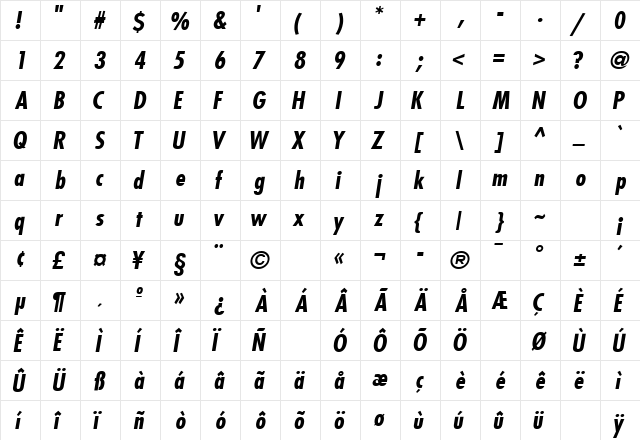
KudosBlackCondSSK Bold Italic Font Preview
Design Context for KudosBlackCondSSK Typeface
KudosBlackCondSSK takes a measured approach to typography — its balanced proportions and neutral character make it a reliable workhorse for both digital and print work. The dynamic lean of this cut emphasises speed and emphasis in any layout. Its bold stroke weight gives it real presence on the page. Its narrow stance lets it pack a punch even in space-constrained designs.
Pro Tip: Use KudosBlackCondSSK for emphasis, pull quotes, and subheadings where its slanted energy can add rhythm to the layout.